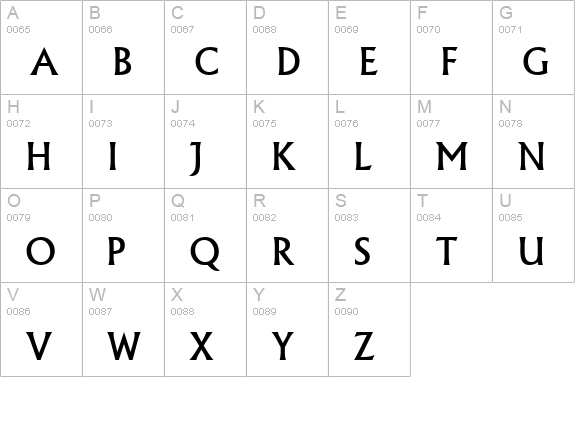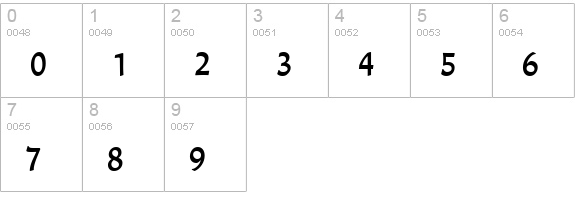
Narkisim font is a modern, elegant typeface that exudes sophistication and style. With its clean lines and unique design, Narkisim is perfect for a wide range of creative projects, from branding to editorial design. This versatile font is sure to make your text stand out and leave a lasting impression on your audience. The best part? Narkisim font is completely free to download at FontsMarket.com. That's right, you can access this stunning font at no cost and elevate your design projects with ease. Don't miss out on the opportunity to enhance your work with the beauty and versatility of Narkisim font – download it today and see the difference it can make!